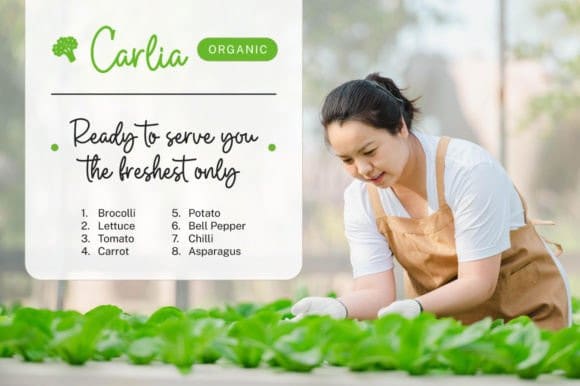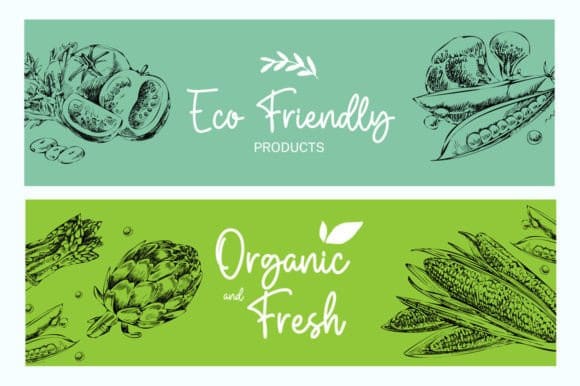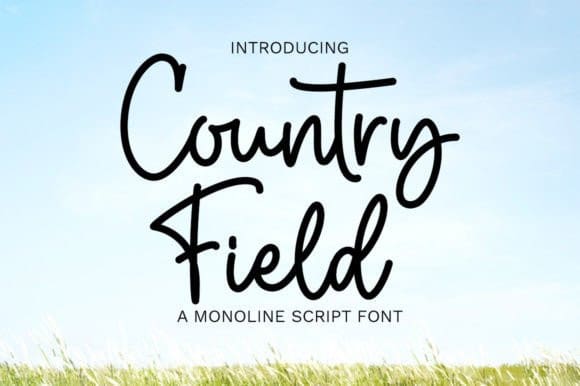
Country Field Font
Country Field Font is a beautiful, well-balanced, and graceful script font. It is defined by smooth curves and is perfect for fashion branding or editorial designs.